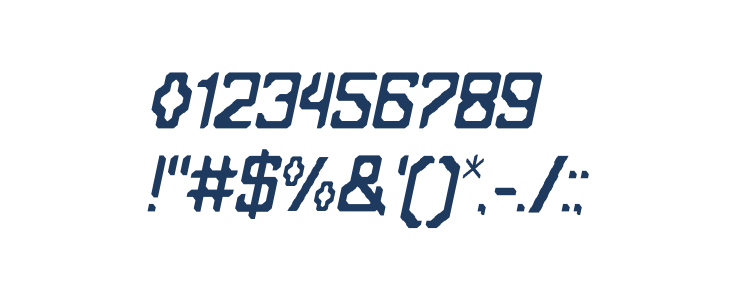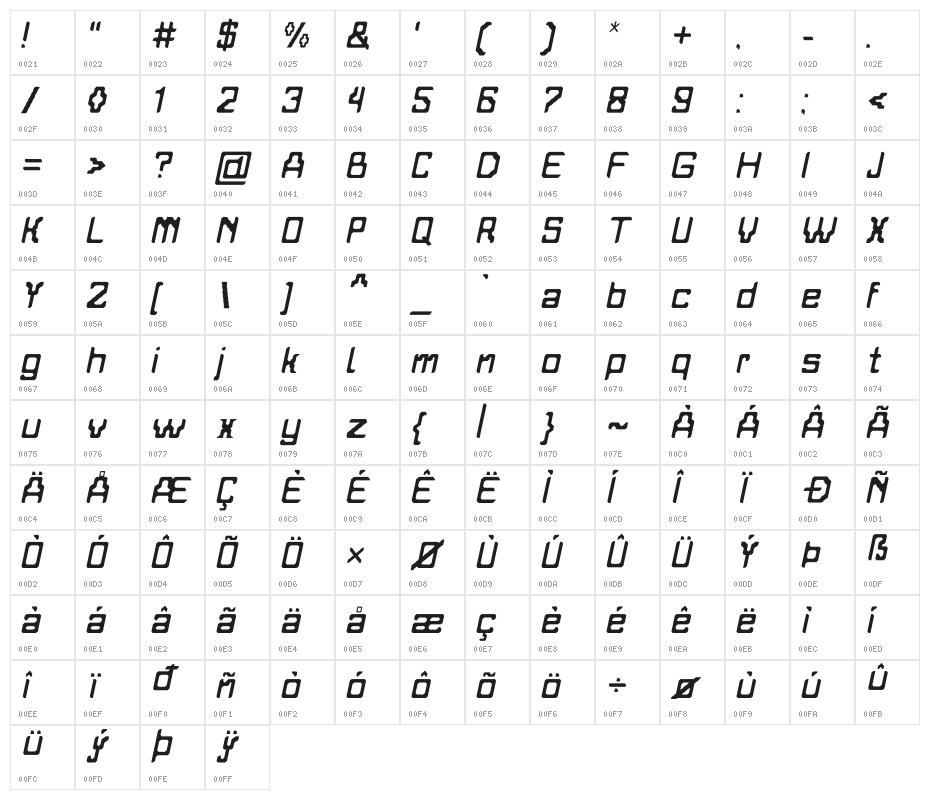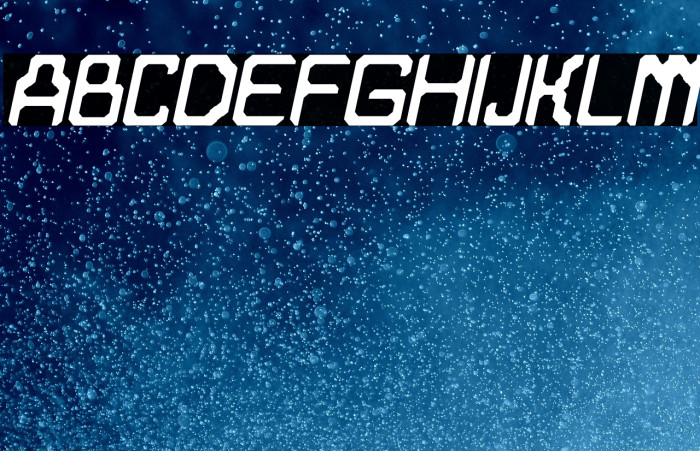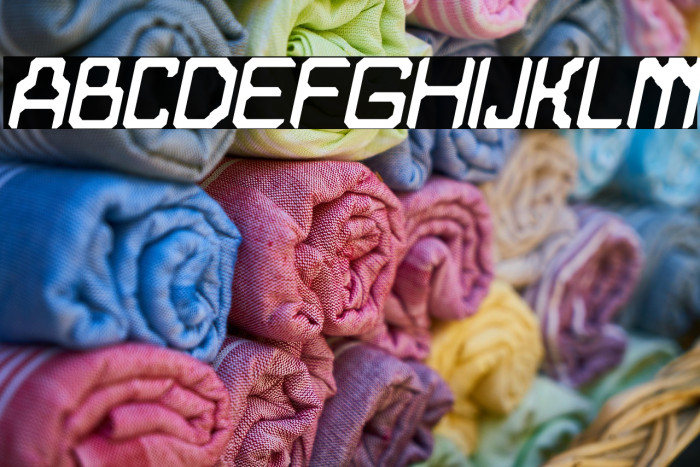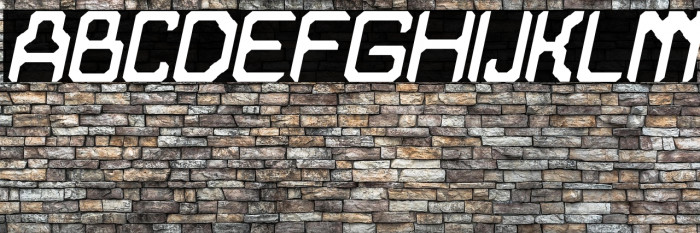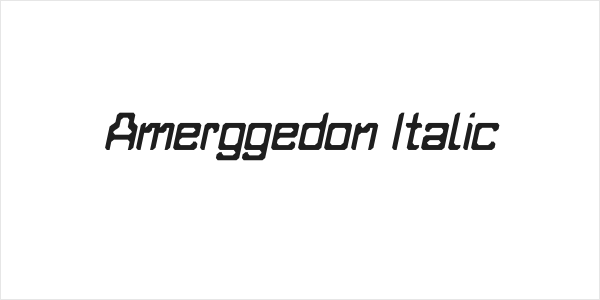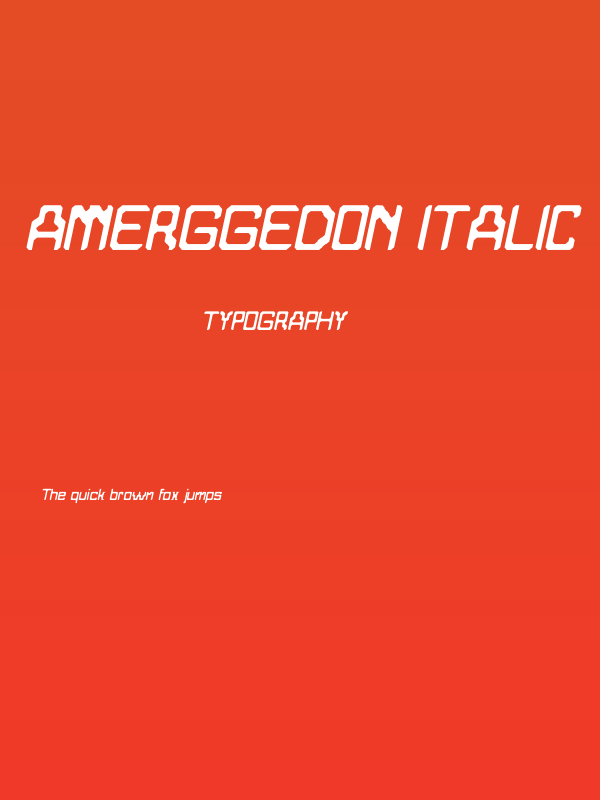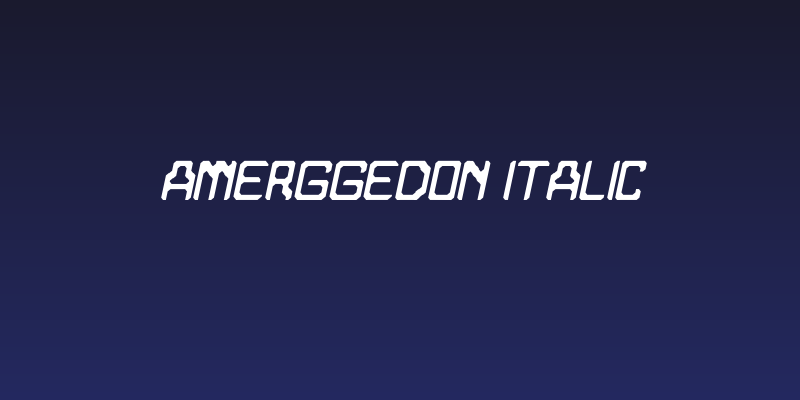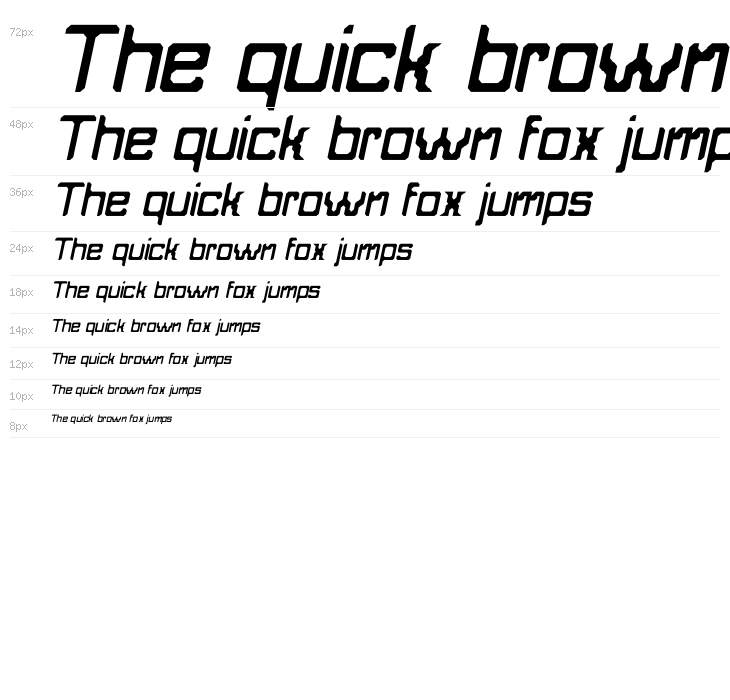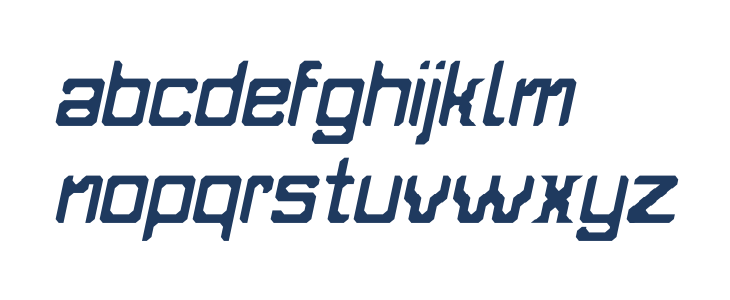
Amerggedon Italic Font
Amerggedon Italic Description
This font features a bold and dynamic italic style with a futuristic and edgy appearance. The characters are sharply angled, giving them a sense of motion and energy. The uppercase and lowercase letters maintain a consistent slant, enhancing the italicized effect. The numbers and special characters are designed with the same angular and bold characteristics, ensuring uniformity across the typeface. The overall design is modern and impactful, making it suitable for projects that require a strong visual presence.
| Proposed Projects | Ideal for sci-fi themed designs, video game titles, tech branding, and dynamic posters. |